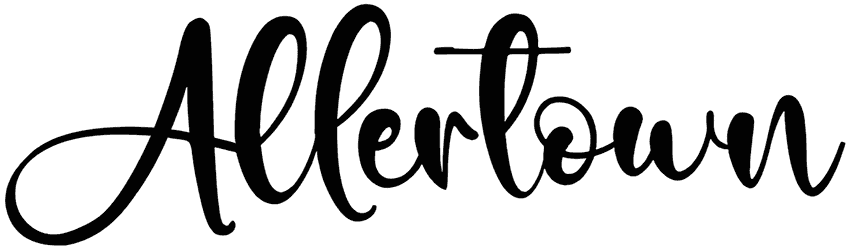
Allertown Font
Do joint movements and rotational twists make you dizzy? So Allertown can become one of the star members of your collection. This handwritten font is designed with great care and gives the feeling that you have spent many hours creating a text.
So, if you are looking for credibility in your content and want to focus the reader a little to read the writings, give strength to the content of friendly letters, greeting cards, and wedding invitations with this script font.